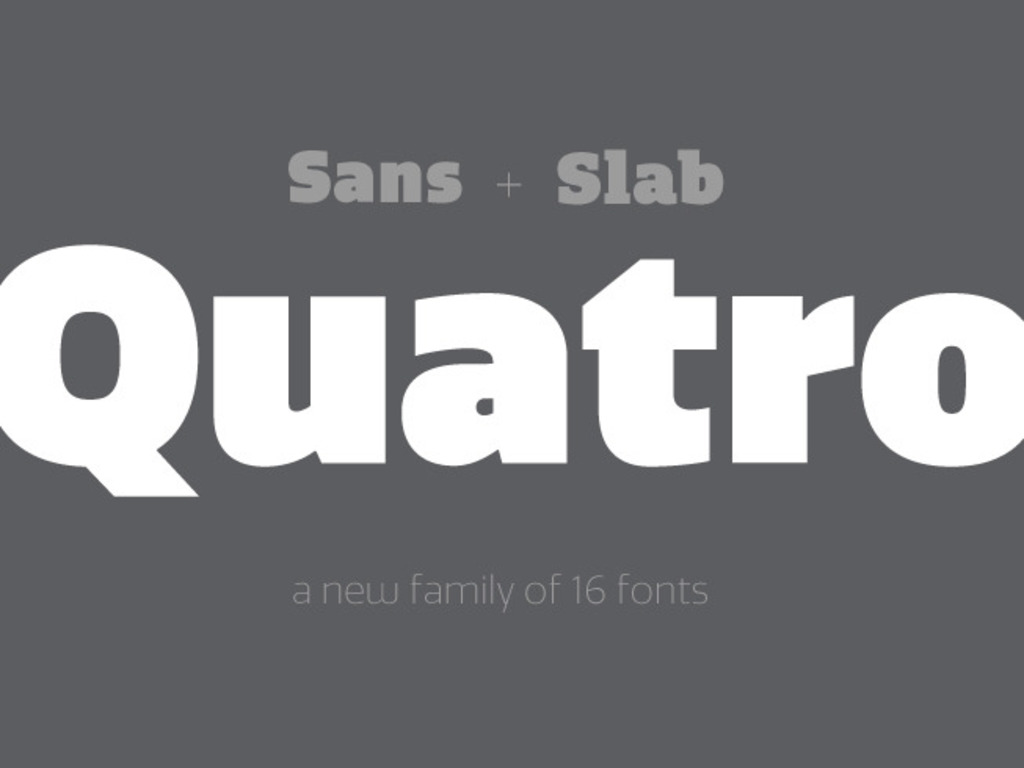
Mark Caneso is raising funds to expand the typeface Quatro to a 16 font family
It's a simple question really: Would you use this typeface?
The Typeface
In 2009 I launched my digital type lab - pstype.com. The first release was an ultra black display face and matching italic called Quatro. In 2010 I created a companion slab serif design of the same weight titled Quatro Slab. Now, in 2011, after several comments and inquires about the typeface I've decided to expand Quatro once more to a full family of weights ranging from Light to Ultra Black in both the sans and slab styles.
The final type family will consist of a 16 fonts - 4 weights with matching italics in each style. Each font will have the full Latin-1(256) character set and be produced in the OpenType format.
The Specimens
There are going to be three type specimens created to accompany the typeface:
1. a 3.5 x 5 inch pocket sketchbook with Quatro featured on the cover and 32 blank interior pages
The sketchbook will look something like the above images
2. a 12 - 16 page booklet highlighting Quatro and its features
3. a 19 x 25 inch Letterpress poster
a 19 x 25 inch Screenprinted poster
All images used in the video feature Quatro as the main typeface